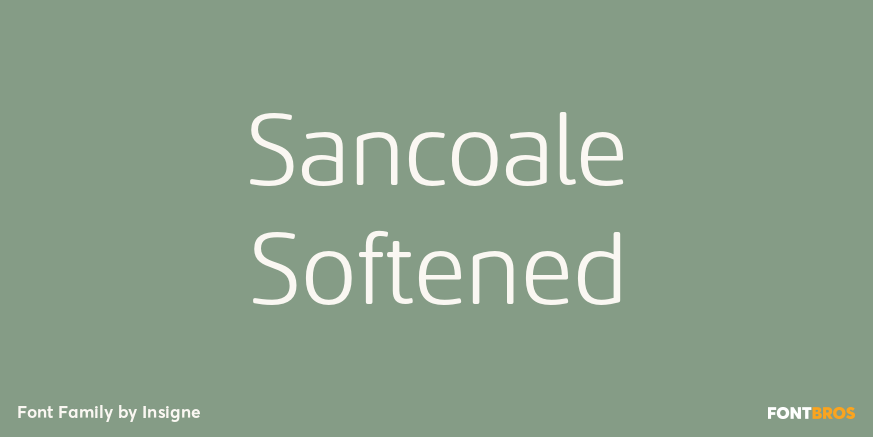
Sancoale Softened
About Sancoale Softened
Sancoale Softened is the new rounded companion to Sancoale. While the original Sancoale is crisp and defined, its delicate forms also lend themselves well to a lighter, more rounded version. The stems of Sancoale Softened are blunted, and its corners…